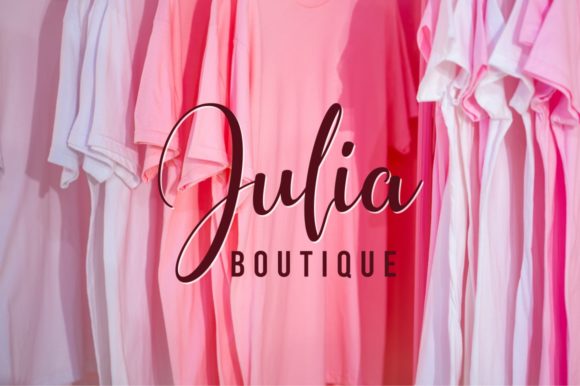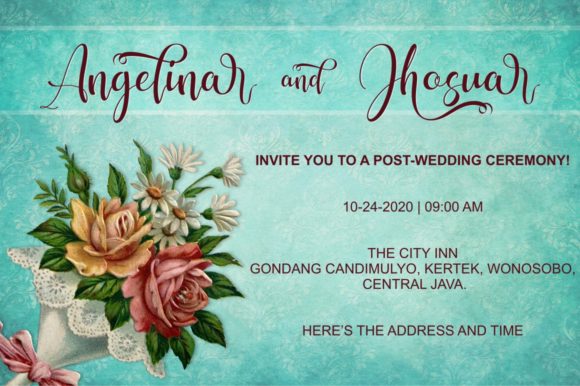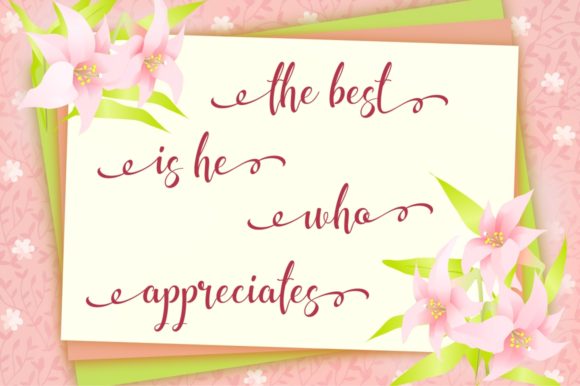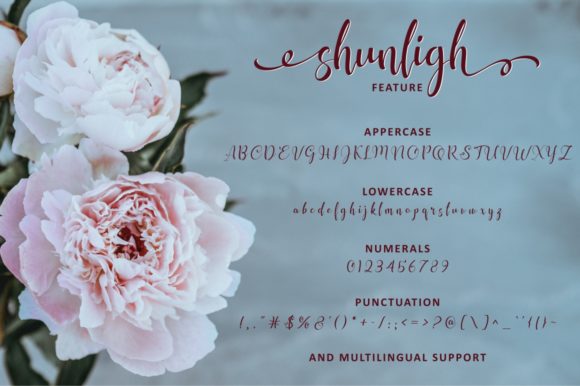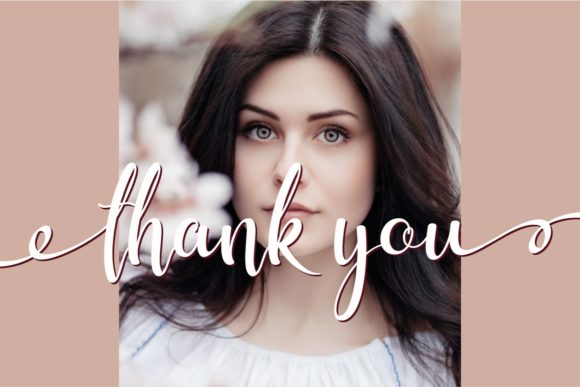
Introduction to Shunligh Font
Have you ever stared at a blank page, trying to come up with the perfect font to bring your creative project to life? It’s a moment that’s all too familiar for designers, and it’s often the deciding factor between a project’s success and failure. That’s why discovering a high-quality font like the Shunligh Font can be a game-changer.
With its modern script style and lovely aesthetic, the Shunligh Font is the perfect design resource for any project. Whether you’re working on a free download, a social media graphic, or a full-fledged marketing campaign, this font is sure to impress. Plus, with a transparent background, it’s incredibly versatile and can be easily layered over any image or design element.
What makes the Shunligh Font truly valuable for designers is its ability to add a touch of sophistication and elegance to even the most basic designs. And the best part? It’s available for free download, making it an invaluable addition to any designer’s toolkit.
Key Features of Shunligh Font
- Transparent background, allowing for seamless integration into designs
- Unique, elegant design style suitable for a wide range of applications
- Designed with a focus on readability and aesthetics, making it a valuable design resource
Honest Review: Shunligh Font
As a designer, I’m always on the lookout for high-quality design resources to enhance my creative projects. Recently, I came across the Shunligh Font, and I’m excited to share my honest review with you.
- ✨ The font is incredibly versatile, making it perfect for a wide range of creative projects, from logos to editorial designs.
- ✨ The transparent background feature is a nice touch, allowing for seamless integration with various design elements.
- ⚠️ Some users may find the font’s styling to be a bit too minimalistic, limiting its use in more complex designs.
Overall, I’m impressed with the Shunligh Font’s quality and versatility. While it may have some limitations, it’s an excellent design resource for personal and small-scale projects. If you’re looking for a high-quality font to elevate your creative project, I’d definitely recommend giving it a try.
How to Use Shunligh Font
Using Shunligh Font in Creative Projects
Working with Transparent Background
High-Quality Results
To get the most out of Shunligh Font, use it in conjunction with other high-quality design resources. Experiment with different font sizes, colors, and combinations to achieve a polished and professional look.
Some common use cases for Shunligh Font include:
- Branding materials
- Digital artwork
Alternatives to Shunligh Font
Great Vibes Font is a high-quality script font perfect for creative projects that require a touch of elegance. It’s a free download and can be used for a variety of purposes, including wedding invitations, branding, and packaging design.
When to use: Use Great Vibes Font for projects that need a sophisticated and stylish feel. It’s ideal for designers who want to add a creative twist to their designs.
Comparison to Shunligh Font: Great Vibes Font has a more elegant and refined look compared to Shunligh Font, which has a more casual and playful feel.
Alex Brush Font is a beautiful and high-quality script font that’s perfect for designers who want to add a personal touch to their projects. It’s a free download and can be used for a variety of purposes, including branding, packaging design, and digital products.
When to use: Use Alex Brush Font for projects that need a touch of warmth and personality. It’s ideal for designers who want to create a sense of connection with their audience.